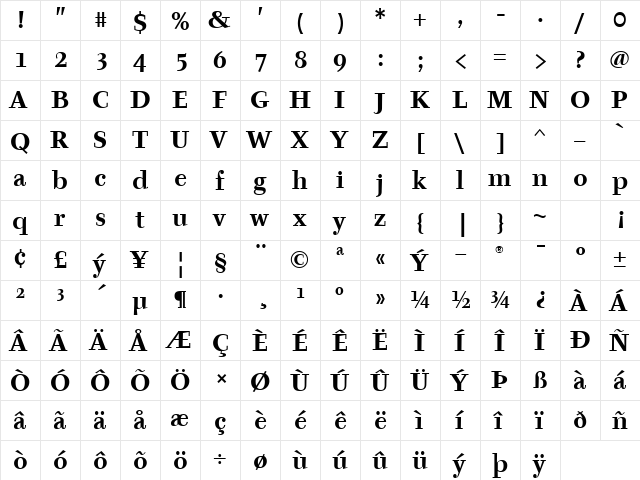
TyfaITC TT Bold
Bold · International Typeface Corporation Josef Tyfa/Frantisek Storm ·
DesignerJosef Tyfa/Frantisek Storm
Design Context for TyfaITC TT Typeface
TyfaITC TT offers clean, dependable letterforms without strong stylistic allegiance, making it a practical choice for designers who need flexibility. The heavy weight commands attention and anchors typographic hierarchies.